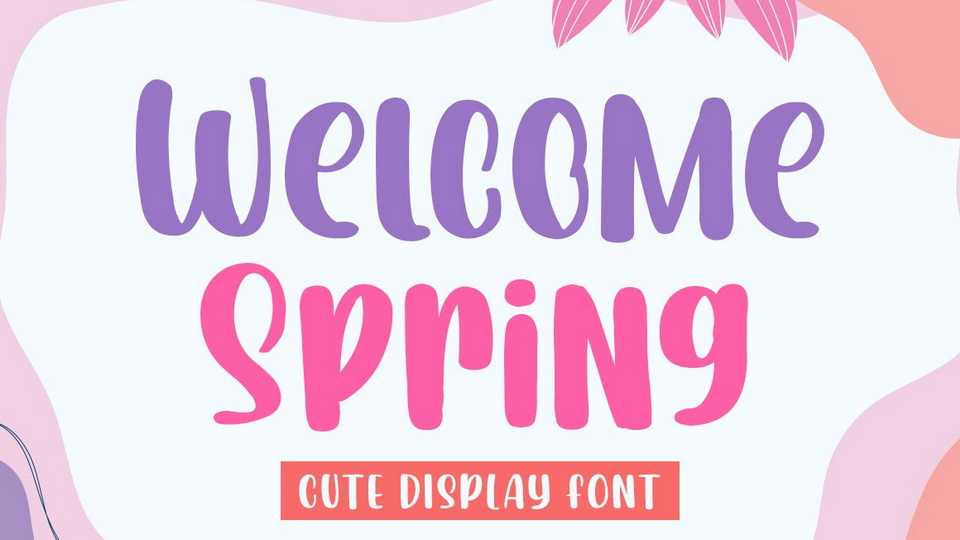
Download Welcome Spring font, a cute and colorful display typeface. Welcome Spring embodies playfulness and authenticity and is the perfect choice for any children activity or school project.